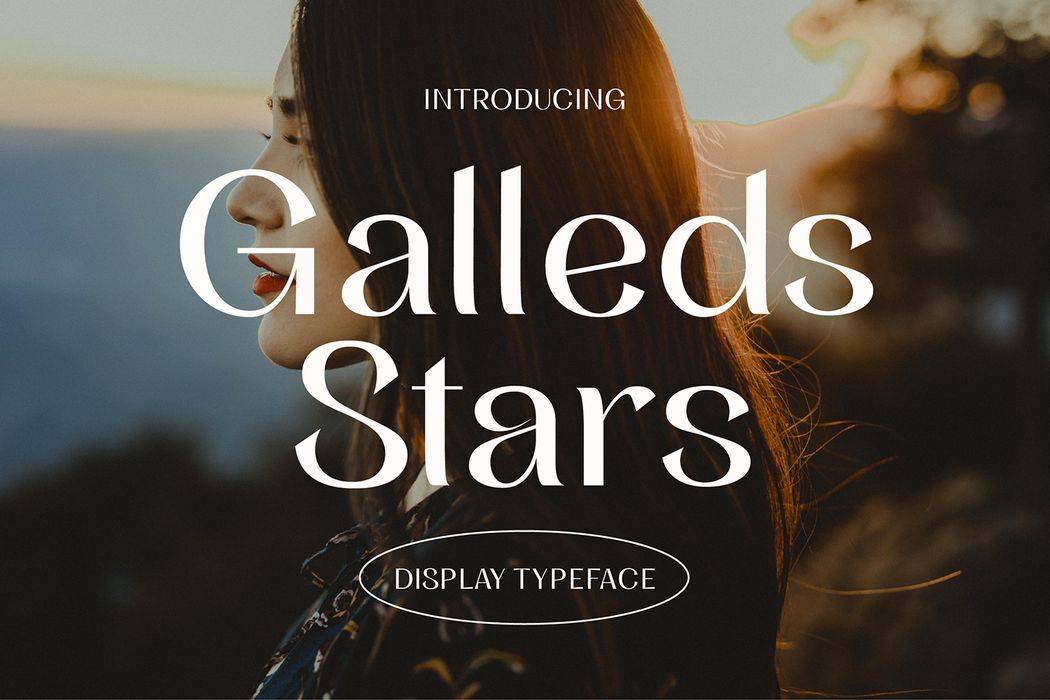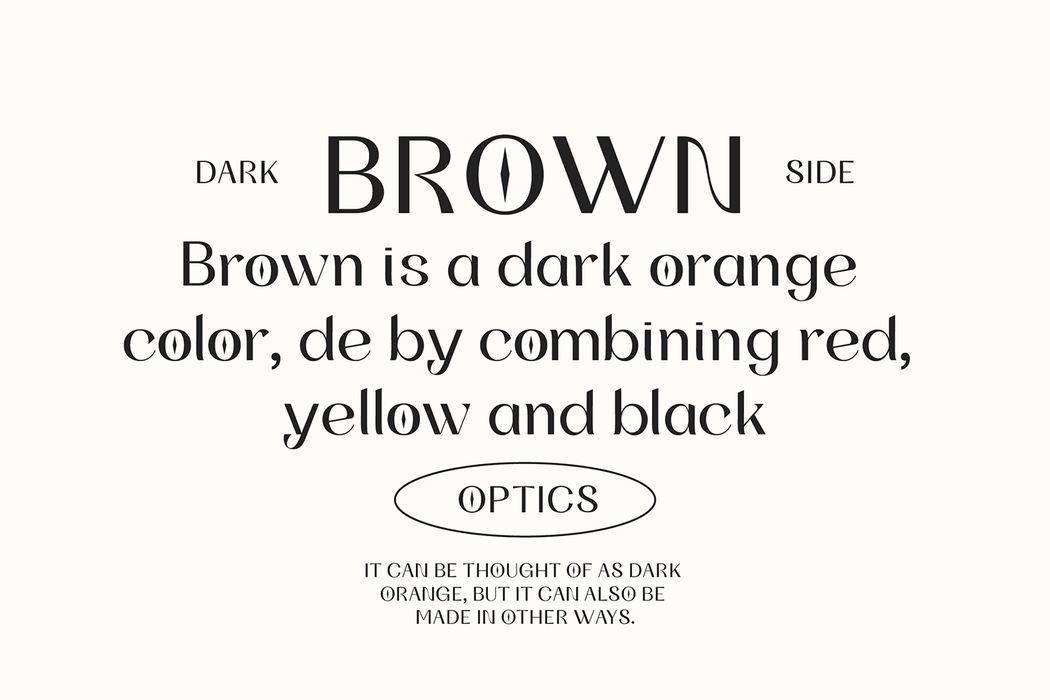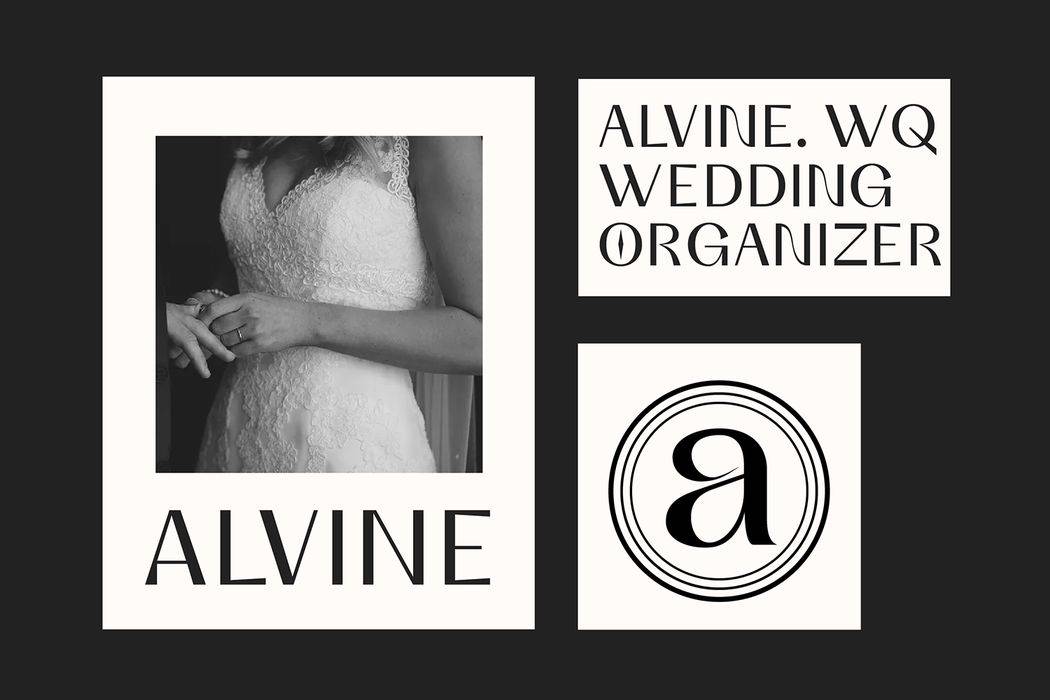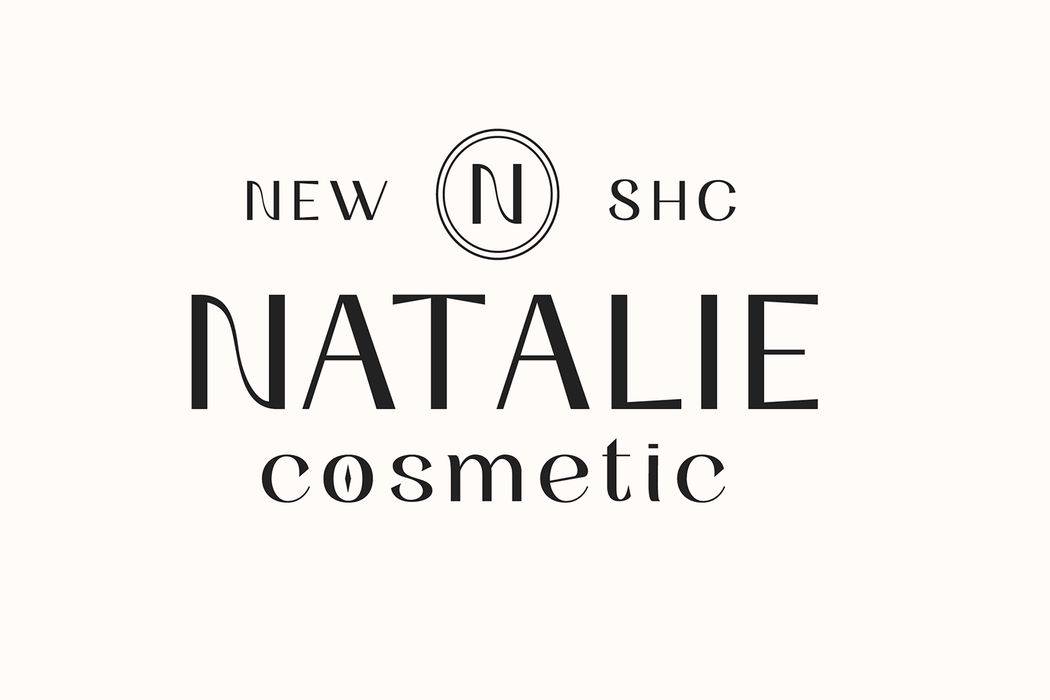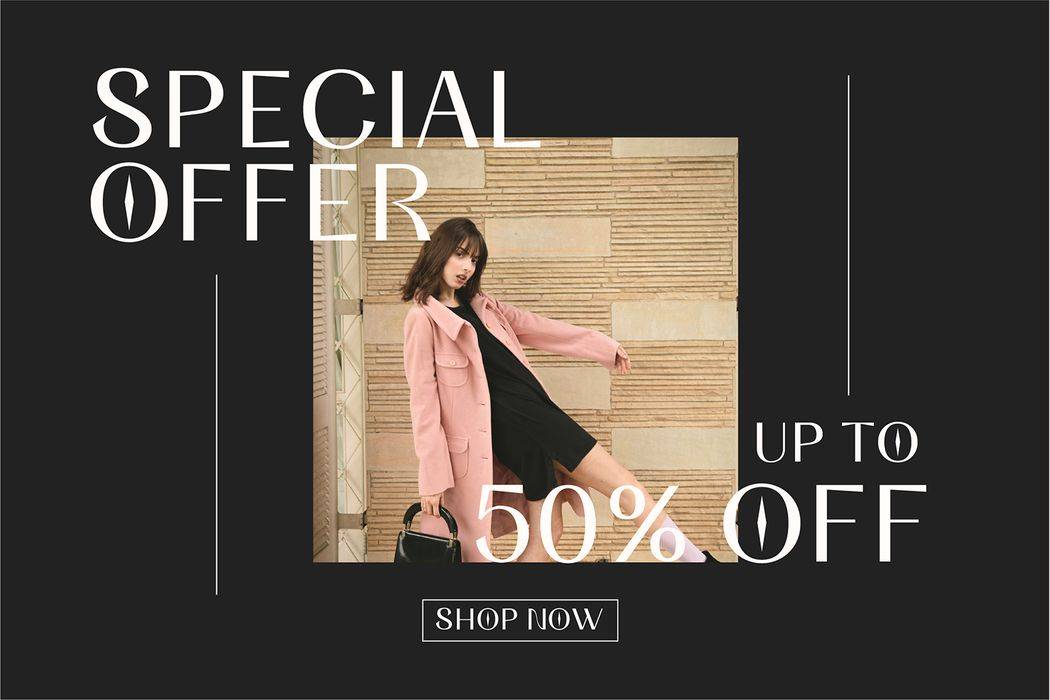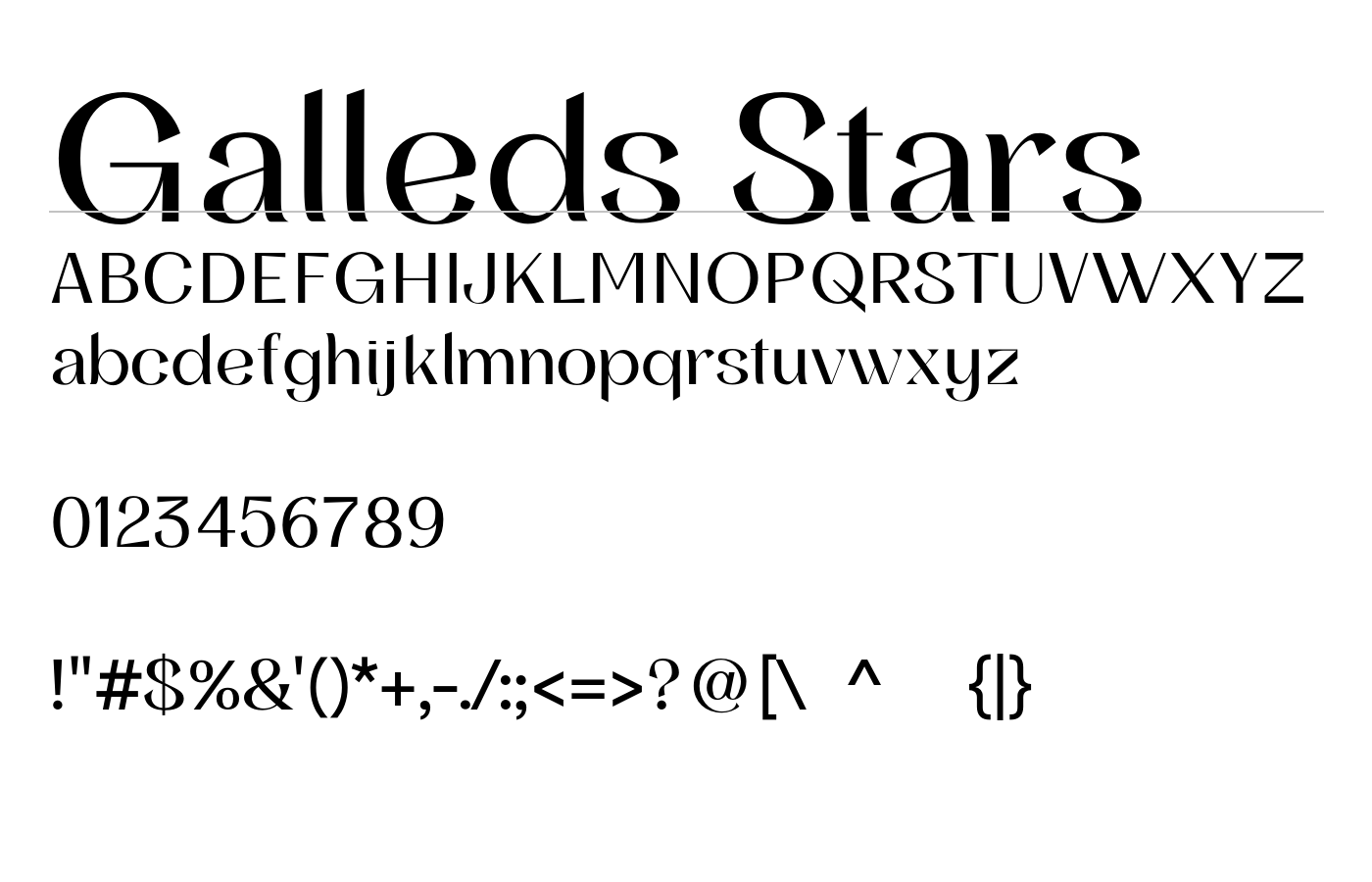
Galleds Stars is an elegant serif font with a refined, modern touch, featuring high contrast between thick and thin strokes and delicate, sharp serifs. Its unique letterforms, such as the single-story ‘a’ and distinctive ‘R’ and ‘Q’, give it a sophisticated yet approachable personality, making it ideal for luxury branding, editorial layouts, and stylish headlines. This font works beautifully where a blend of classic charm and contemporary flair is desired, enhancing projects that seek to communicate elegance and professionalism.
Galleds Stars Font
About Galleds Stars Font
| Designer | Abdul Artega |